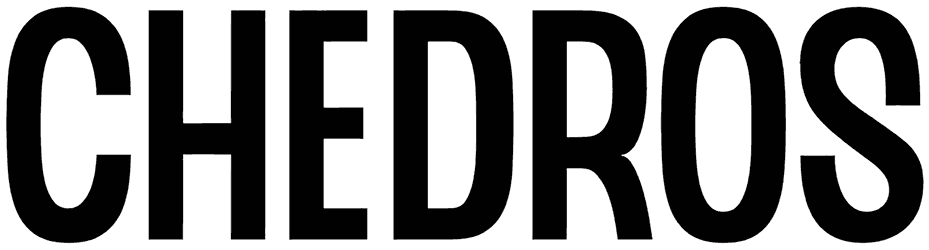
Chedros Font
If you’re going to keep everything simple and to the point, this sans serif font can do the trick for you. Chedros appears in semi-bold characters and can be utilized for magazines, menus, snack packaging, etc. Bear in mind that this case doesn’t cover lowercase letters. To get more of this collection, don’t miss our ever-growing website!